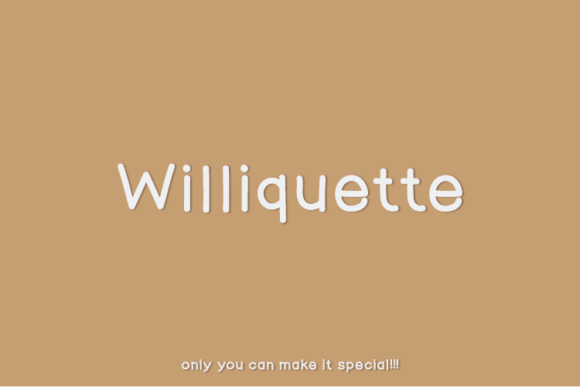
Dive into the world of captivating typography with Williquette Font, a remarkable sans serif creation by the ingenious Hanna Bie. Experience the allure of a font crafted with meticulous attention to detail, where each character's indentation remains untouched, resulting in a symphony of visual intrigue and uniqueness.
Unleash your creativity with Williquette Font, the perfect companion for transforming your quotes, notes, tees, and product designs into captivating masterpieces. Its natural charm effortlessly elevates any project, adding a touch of sophistication and personality.
Williquette Font is more than just a font; it's an artistic expression that breathes life into your words. Its organic flow and graceful curves create a visual harmony that captivates and enchants. Whether you're a seasoned designer or just starting your creative journey, Williquette Font is the key to unlocking your typographic potential.
With Williquette Font, you'll discover a world of endless possibilities. Its versatility knows no bounds, seamlessly adapting to a myriad of design projects. From heartfelt quotes that resonate with your audience to eye-catching product labels that demand attention, Williquette Font is the ultimate choice for making a lasting impression.
Embrace the beauty of imperfection with Williquette Font. Its deliberate preservation of each character's indentation creates a captivating visual texture that sets it apart from the ordinary. This unique characteristic adds depth and dimension to your designs, ensuring they stand out from the crowd.
Step into the realm of exceptional typography with Williquette Font. Its natural allure and boundless versatility make it the ideal choice for designers seeking to create impactful and memorable designs. Download Williquette Font today and unlock the gateway to a world of creative possibilities.